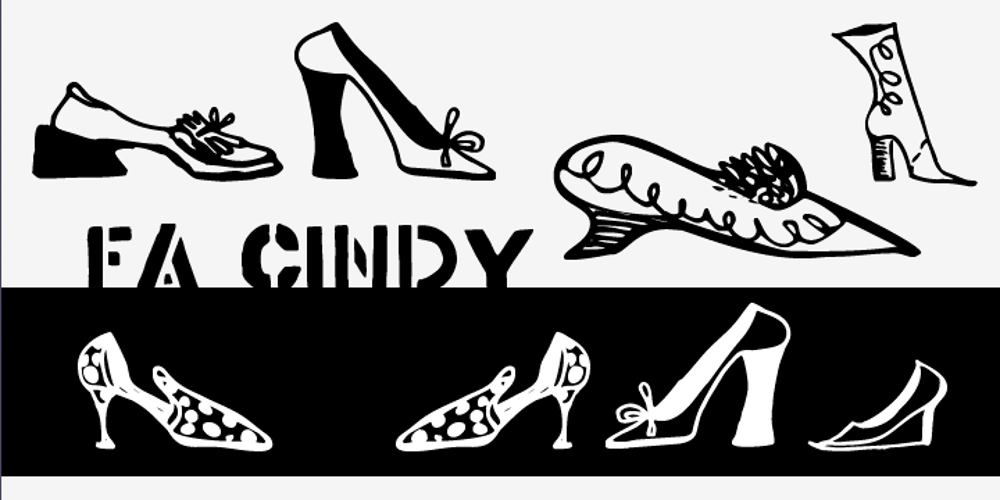
Cindy FA Font Family was designed by Magdalena Frankowska and published by Fontarte. Cindy FA contains 1 styles and family package options. Imelda Marcos, Cinderella – welcome to the club … A picture font containing over sixty shoes, slippers and boots, fashionable yesterday, today and maybe tomorrow. Hand drawn by a designer Magdalena Frankowska. Not only for fetishists.